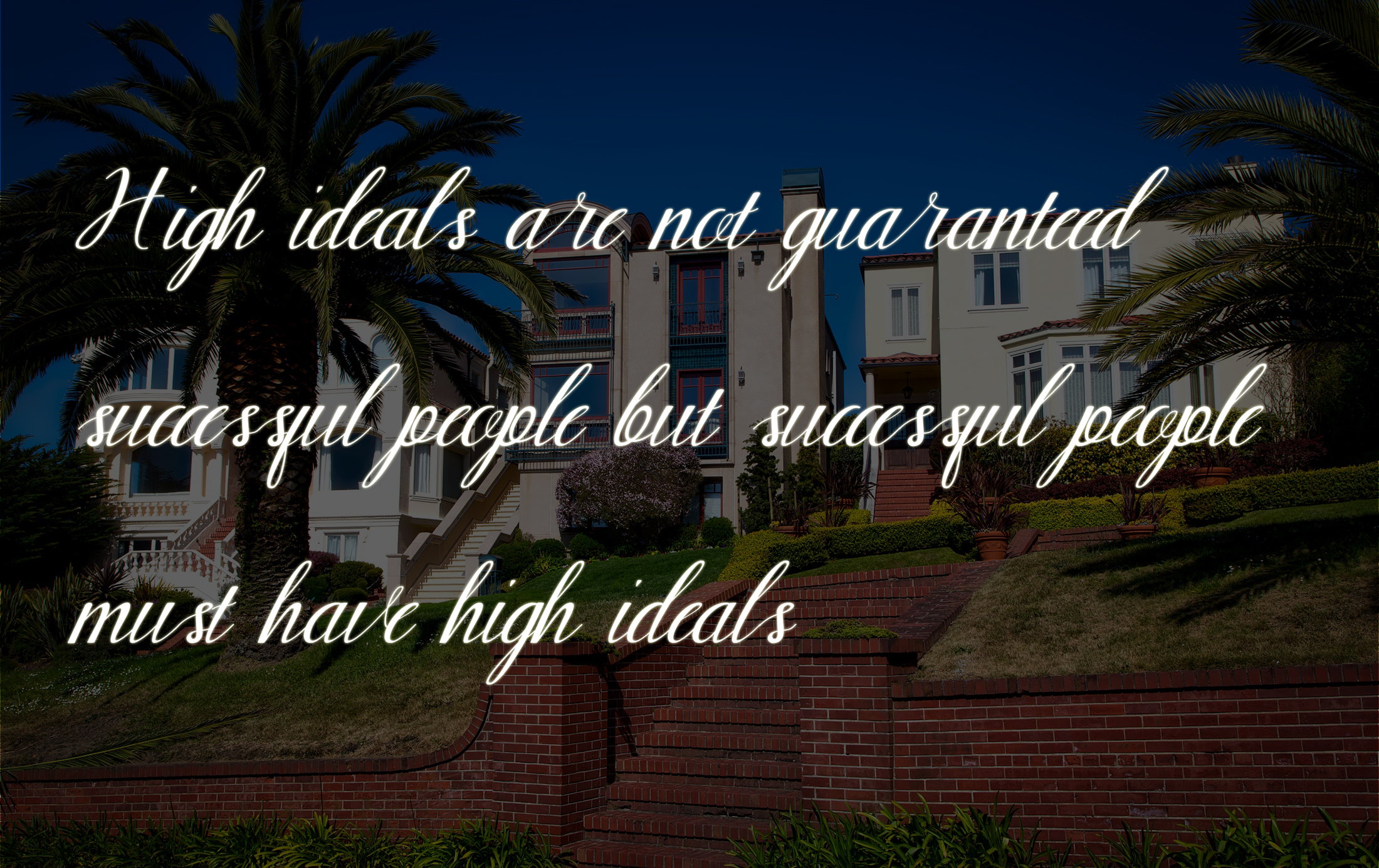
The Quest for the Perfect Font: Discovering Amelia
I still remember the frustration of working on a branding project for a client, only to hit a roadblock when it came to choosing the right font. The project required a touch of elegance and sophistication, but everything I tried seemed to fall flat. That’s when I stumbled upon Amelia, a modern calligraphy font created by hand by Imun Studio. It was love at first sight! ✨
A Personal Review of Amelia
- ✨ Unique and elegant: Amelia’s hand-crafted calligraphy style adds a touch of sophistication to any design project.
- ✅ Highly versatile: This font can be used for a wide range of projects, from wedding invitations to business branding.
- 💫 Beautifully designed: The attention to detail in Amelia’s design is impressive, with beautiful swashes and flourishes.
While Amelia is an amazing font, there are a few things to keep in mind: 🤔
- ⚠️ Some characters may require manual adjustment: Due to the handwritten nature of the font, some characters may need to be adjusted manually to ensure proper spacing and alignment.
- ⚠️ May not be suitable for body text: Amelia is best used for headings and titles, as it may be too ornate for body text.
The Story Behind Amelia
Amelia was designed by Imun Studio, a team of passionate designers who wanted to create a font that would add a touch of elegance to any design project. The font was inspired by traditional calligraphy techniques, but with a modern twist. The result is a beautiful, unique font that’s perfect for designers, crafters, and creative hobbyists.
| Font Name | Amelia Font |
| Author | Imun Studio |
Q: What is Amelia font?
A: Amelia is a modern calligraphy font created by hand by Imun Studio.
Q: What can I use Amelia font for?
A: Amelia is highly versatile and can be used for a wide range of projects, from wedding invitations to business branding.
Q: Is Amelia font easy to use?
A: Yes, Amelia is relatively easy to use, especially if you’re familiar with OpenType features and glyphs.